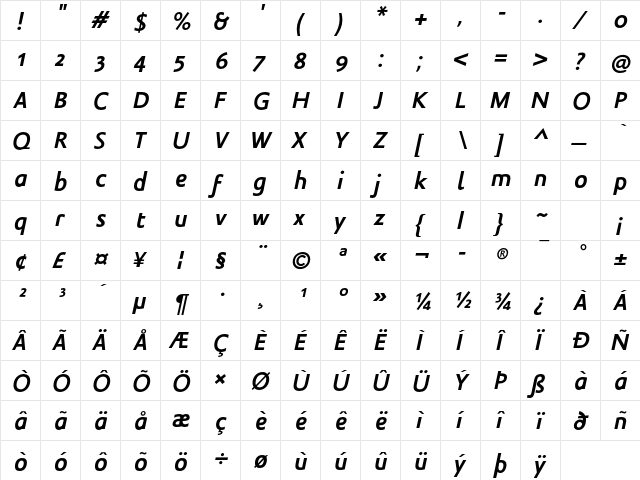
Legal LT Std Bold Italic
| Foundry | Linotype GmbH |
| Designer | Hellmut G. Bomm |
Design Context for Legal LT Std Typeface
Legal LT Std takes a measured approach to typography — its balanced proportions and neutral character make it a reliable workhorse for both digital and print work. Its italic angle brings a sense of urgency and motion to the letterforms. Its bold stroke weight gives it real presence on the page.
Pro Tip: Use Legal LT Std for emphasis, pull quotes, and subheadings where its slanted energy can add rhythm to the layout.